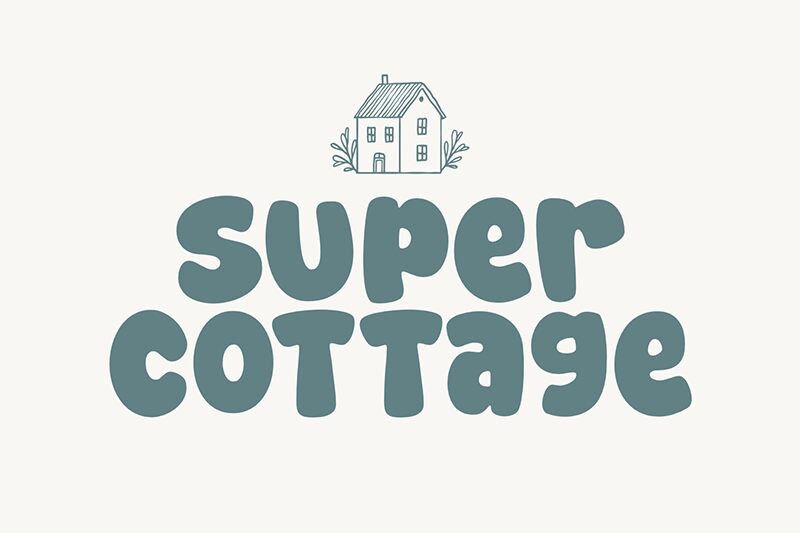
Super Cottage font, designed by fsuarez913, is a bold cartoon display typeface full of friendly and whimsical vibes. The bubbly characters balance between organic and playful styles with visible retro backgrounds for each letter. Together, they additionally bring forth creativity in every design making this clean and simple font worth any user’s while.
Super Cottage is perfect for headlines, posters, magazine covers, or advertisements. Use it to decorate tattoos labels, children’s book covers as well as inside texts. Board games designs will be incredible with a font whose purpose extends also to packaging ideas and branding identity. Add to logos usage the fact that it makes amazing apparel print ideas such as T-shirts or even watches!